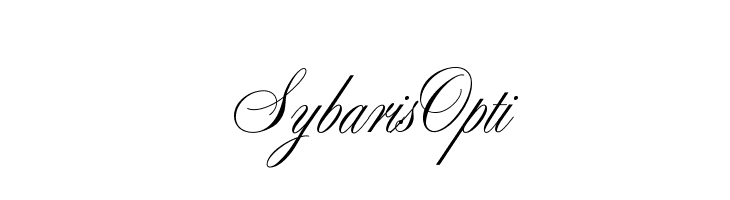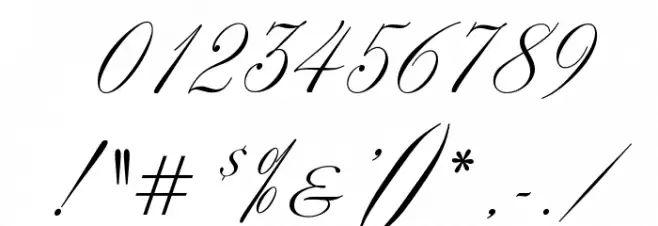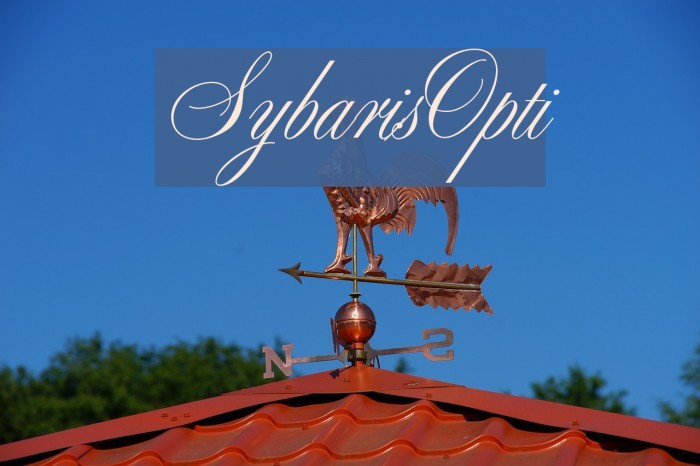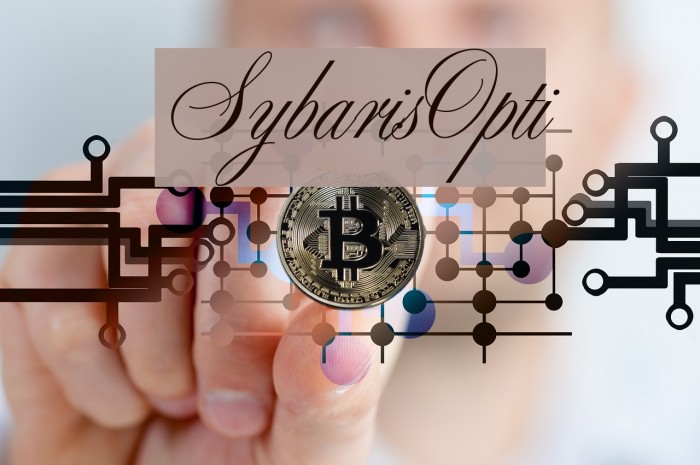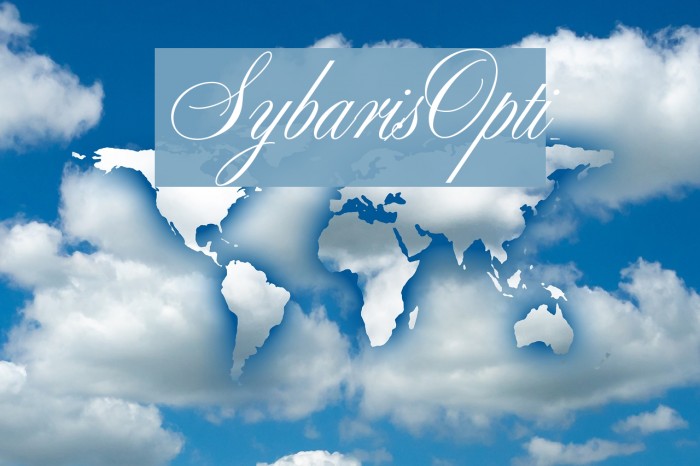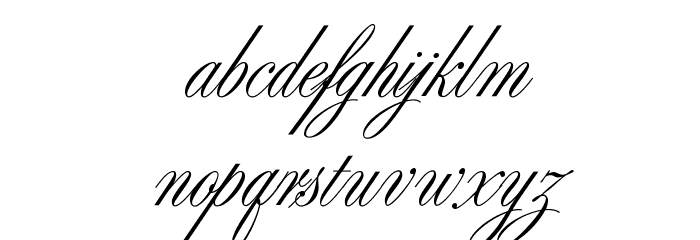
SybarisOpti
This elegant script font features a flowing, cursive style with high contrast between thick and thin strokes. The uppercase letters are ornate and decorative, with intricate loops and flourishes that give them a sophisticated appearance. The lowercase letters maintain a consistent slant, enhancing the fluidity and grace of the text. Numbers and special characters are designed with the same attention to detail, ensuring a cohesive look across all elements. This font is ideal for projects that require a touch of elegance and formality.
An elegant script font with high contrast and ornate flourishes.
- Proposed Projects: Wedding invitations, luxury branding, formal event programs, elegant packaging design.
- Category: Script
- Contrast: High
- Overall Style: Elegant
- Use Case: Logos, Invitations, Branding